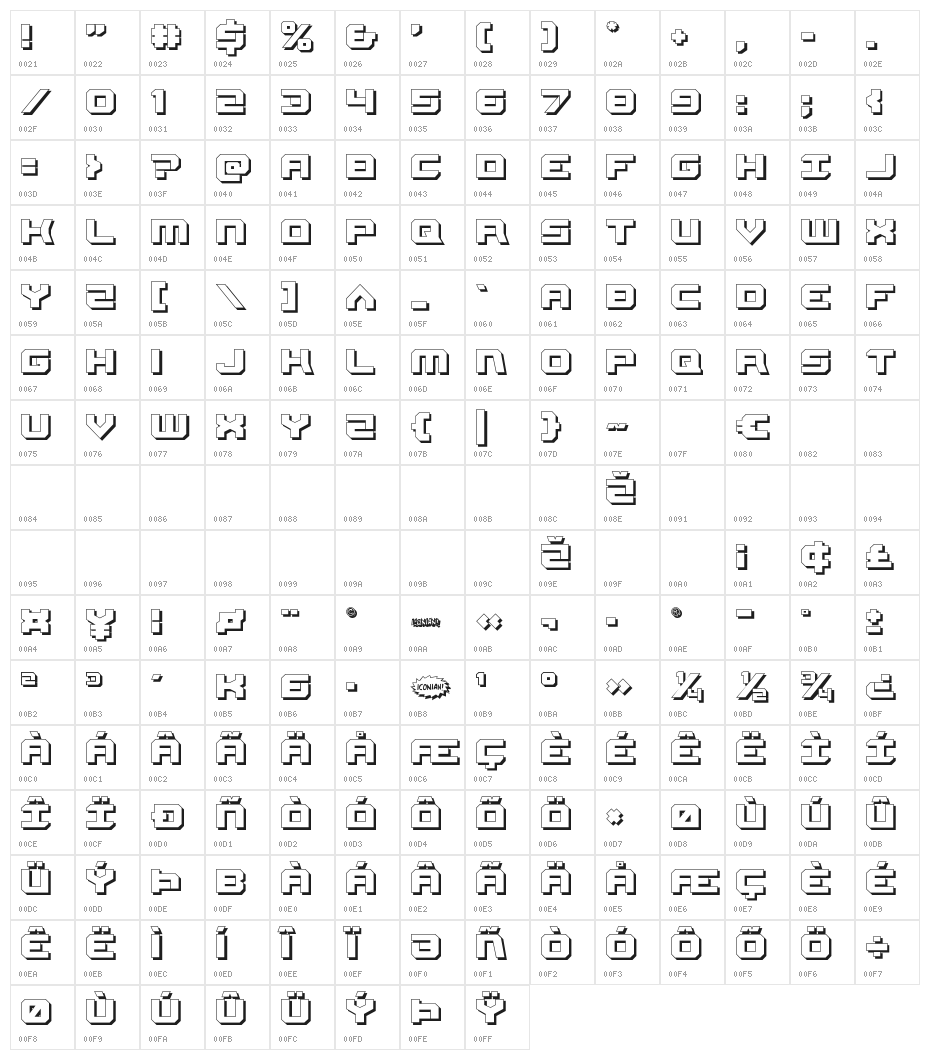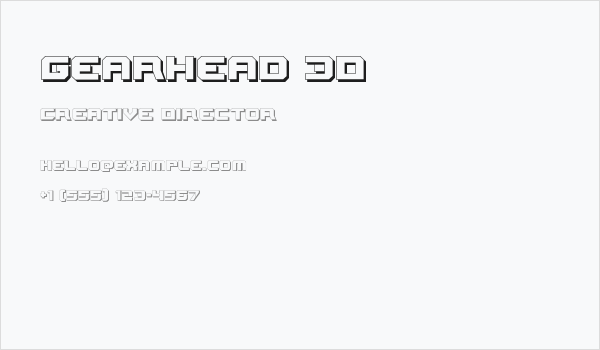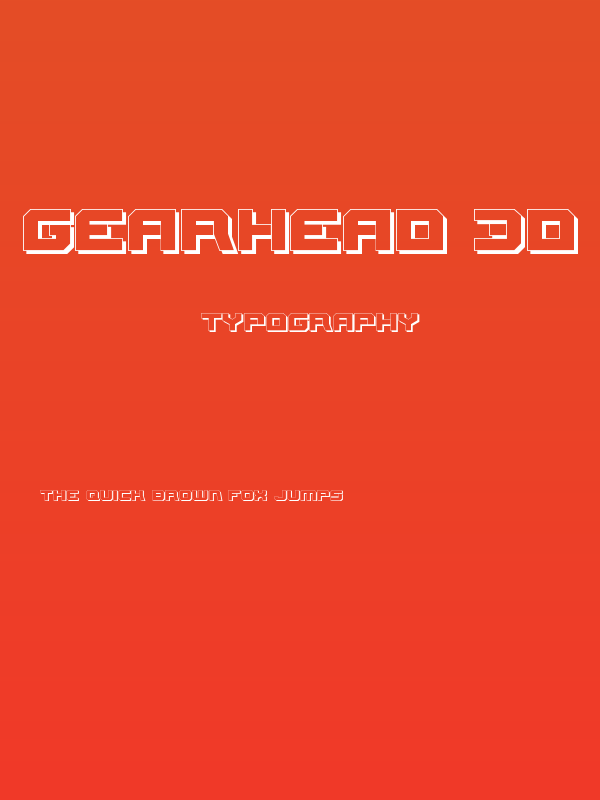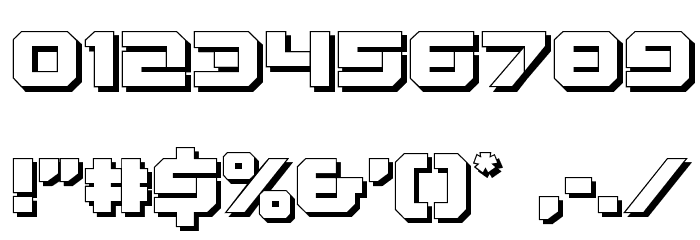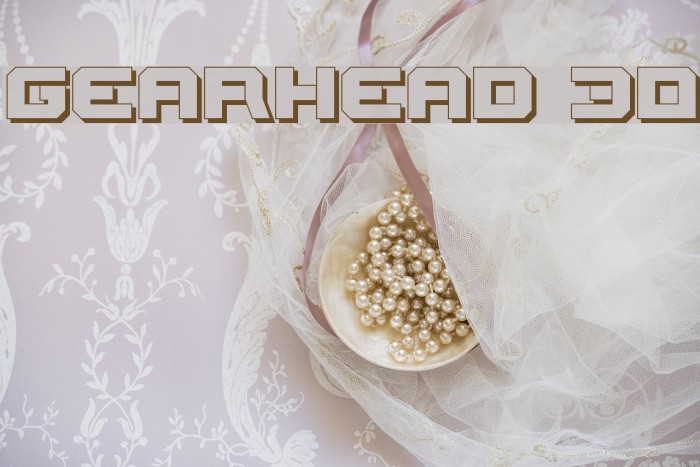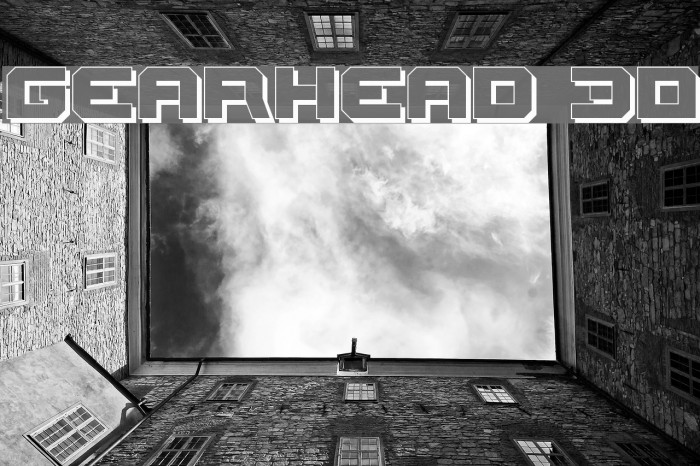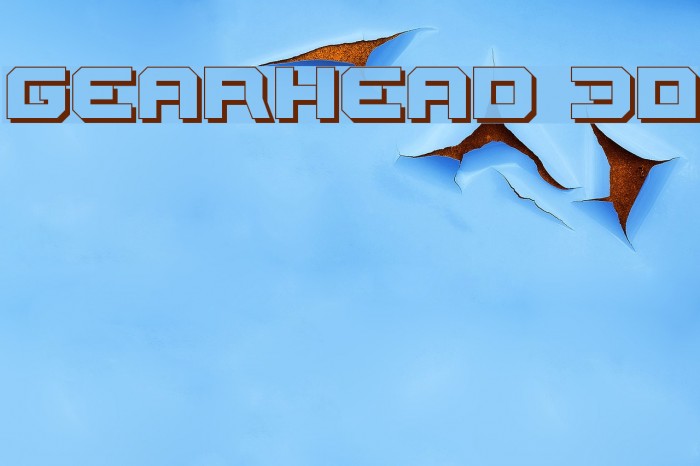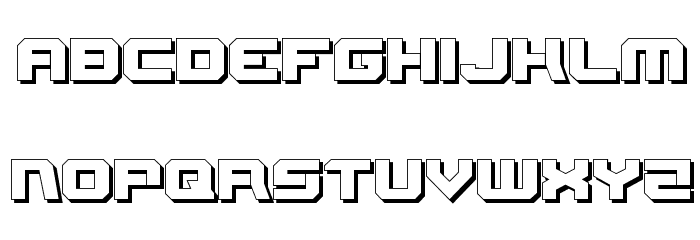
Gearhead 3D Font
Gearhead 3D Description
This font features a bold, three-dimensional design that gives each character a striking, futuristic appearance. The letters are blocky and geometric, with sharp angles and a consistent thickness throughout. The 3D effect is achieved through a shadow-like outline that adds depth and dimension, making the characters appear as if they are popping off the page. This style is consistent across uppercase letters, numbers, and special characters, providing a cohesive look. The font's strong visual impact makes it ideal for projects that require a modern and dynamic aesthetic.
| Proposed Projects | Ideal for video game titles, tech branding, posters, and any design needing a modern, eye-catching typeface. |